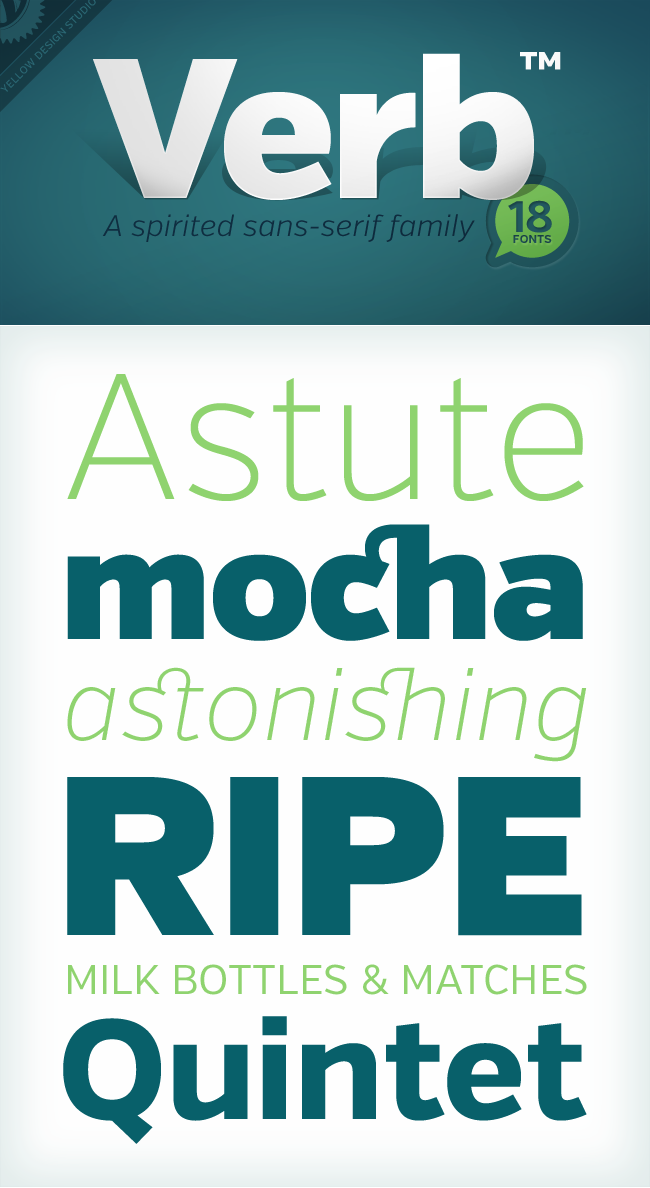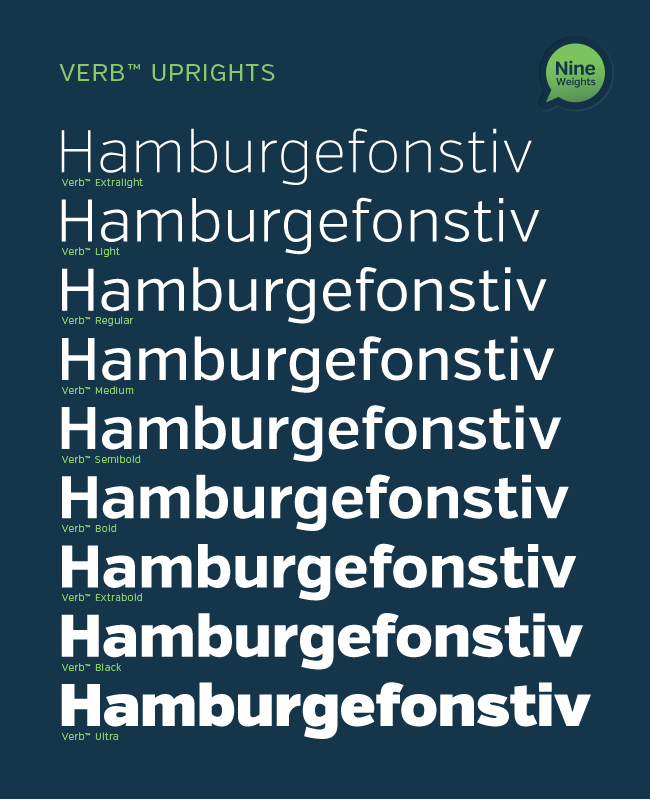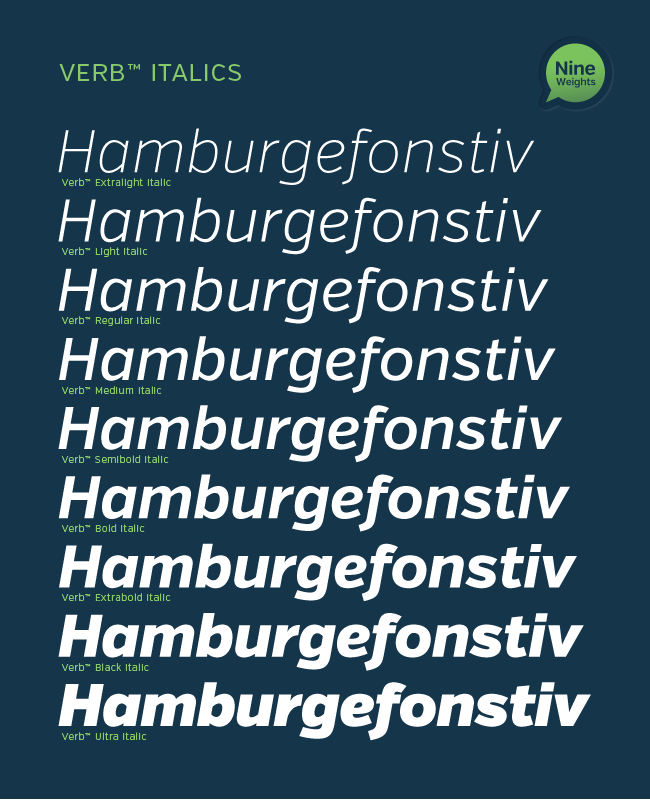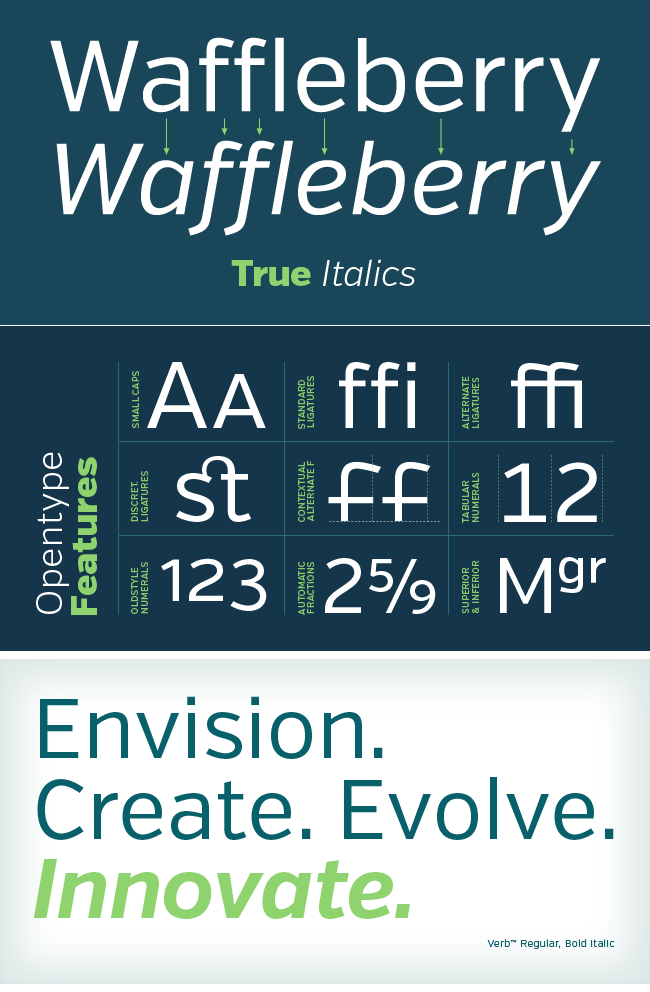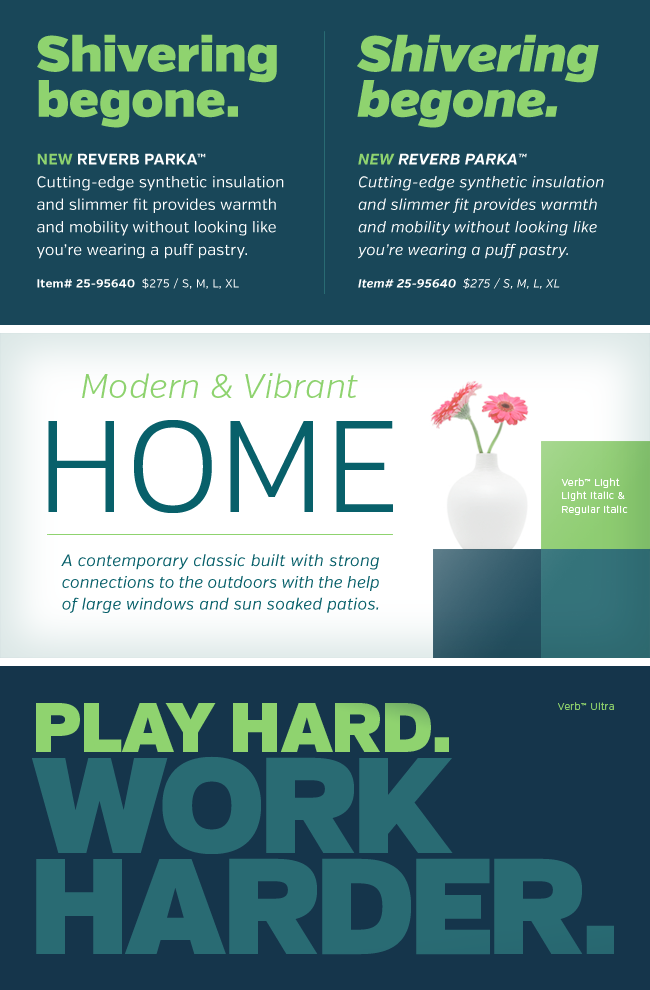
Fonts. Most people probably don't give them a second thought. But if you're a designer, you pretty much view the world through font-colored glasses.
Graphic artists know that the right font can elicit the perfect mood from your users. Finding the right one, however, can sometimes be tricky. If you're looking for something new, it can be an exhausting hunt. Luckily, you've got us on your side! And with this action-packed Mighty Deal from Yellow Design Studio, you can get your designing mitts on the custom-made Verb Font Family, and save money too!
Here are some examples of Verb in use:
Verb Font Family Highlights:
- Unique Font
Based on the sans-serif family, the Verb font family is a friendly and heart-warming font that's also full of bold confidence and tons of energy! Perfect for getting your point across without screaming your head off! - Variety of Font Features
Besides different font types, Verb has plenty of professional typographic features to offer. No project will be too tough for Verb to tackle! Features include: Small caps, discretionary ligatures, alternate connected ligatures (to access, use style set 1 or stylistic alternates), oldstyle numerals and currency, tabular numerals, automatic fractions, superiors and inferiors, ordinals, contextual alternate “f”, and extensive language and currency support. There's even a complete “f” ligature set, which can help improve text flow when used in much longer settings. - 9 Different Weights
Verb is so tough, it can carry nine different weights! Whatever mood you're trying to set, Verb is there to help! Weights include: Extralight, Light, Regular, Medium, Semibold, Bold, Extrabold, Black, and Ultra. - 18 Different Fonts